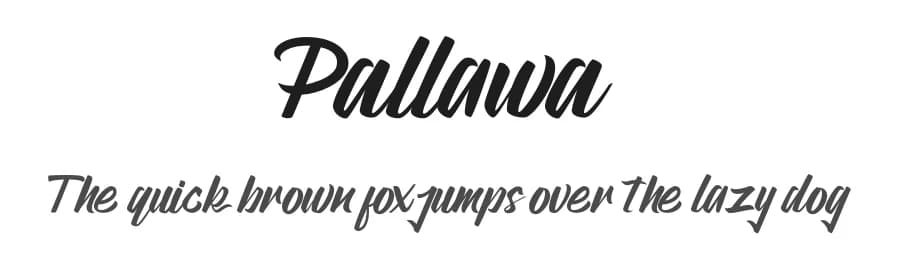
About Pallawa Font
Pallawa ships with 1 OpenType feature you can switch on in apps that support them (Illustrator, InDesign, Affinity, Figma, CSS font-feature-settings).
Pallawa Font is a script font that shines as a display or heading face. Pair it with a clean sans-serif or serif font for body text β the contrast creates a clear hierarchy while the two styles stay balanced and easy to read.
Pallawa Font